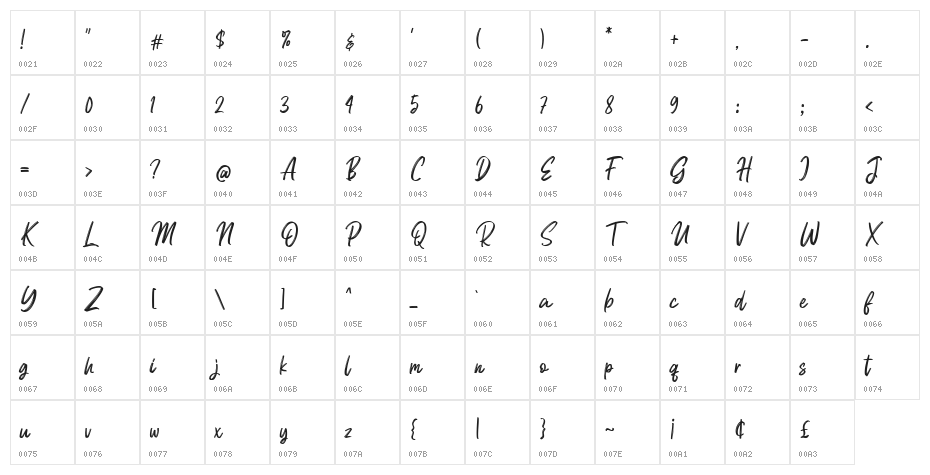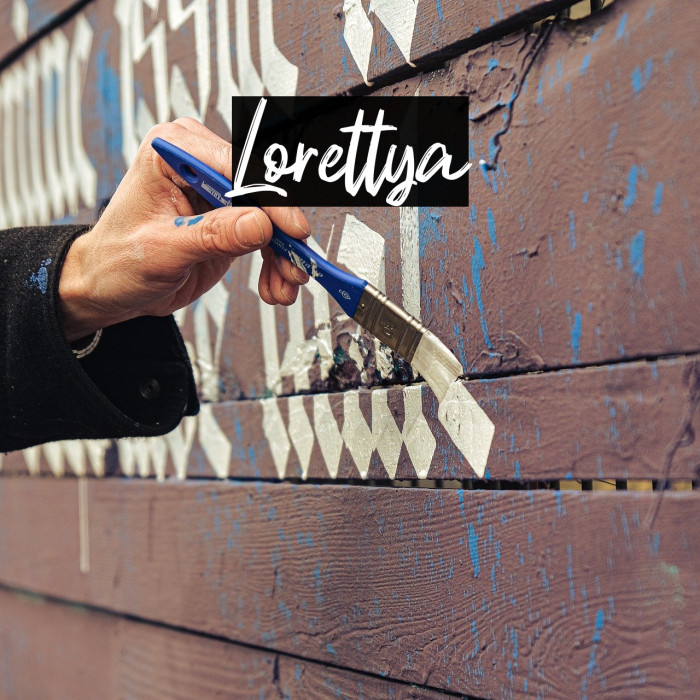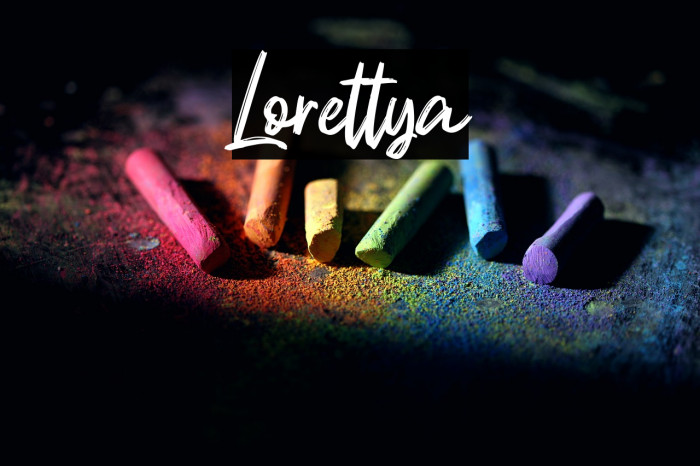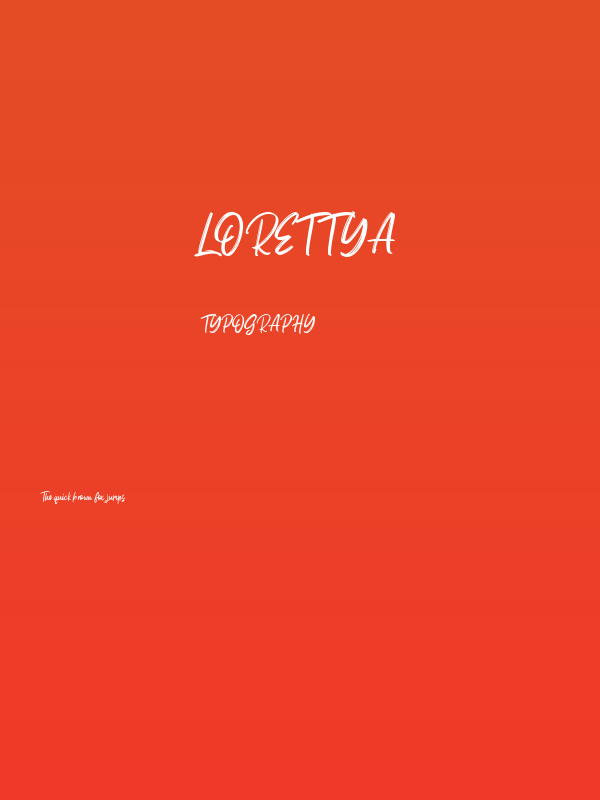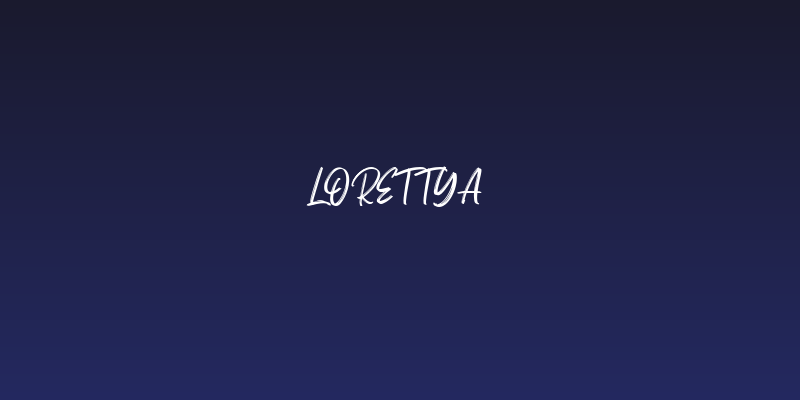
Lorettya Font
Lorettya Description
This font features a dynamic and expressive handwritten style, characterized by its fluid and connected letterforms. The strokes are bold and slightly slanted, giving it a sense of movement and energy. The uppercase letters are tall and elegant, while the lowercase letters maintain a consistent flow, enhancing readability. Numbers and special characters are crafted with the same attention to detail, ensuring a cohesive look across all elements. This font exudes a casual yet sophisticated vibe, making it versatile for various design applications.
| Use Case | Logos, Headlines, Invitations |
| Proposed Projects | Ideal for branding, invitations, greeting cards, and social media graphics. |